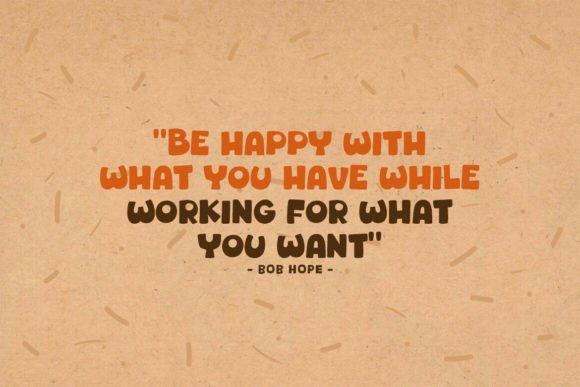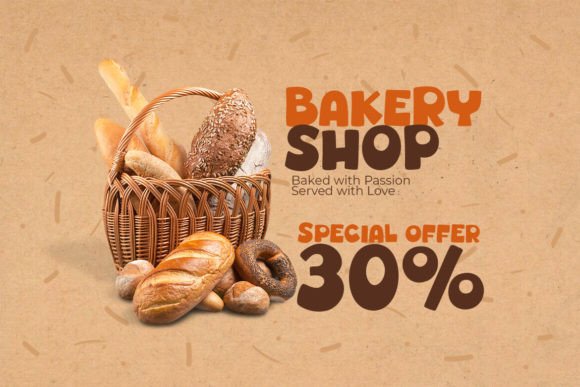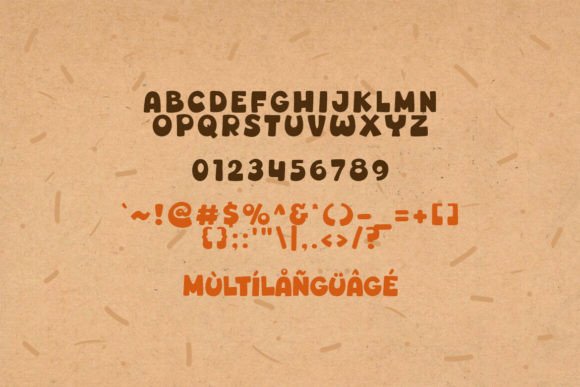
The Cute Roti Font: A Designer’s New Best Friend
I’ll never forget the time I was working on a project for a client who wanted a playful, eye-catching font to match their brand’s fun personality. I spent hours scouring the internet for the perfect font, but nothing seemed quite right. That was until I stumbled upon the Cute Roti font. It’s been a game-changer for me ever since, and I’m excited to share my experience with you.
- ✨ The Cute Roti font is ridiculously cute and playful, making it perfect for designs that need a bit of whimsy.
- ✅ It’s incredibly versatile and can be used for a wide range of projects, from posters and logos to magazines and book covers.
- 💡 The font has a modern feel that makes it perfect for designs that need to feel fresh and current.
While I absolutely love the Cute Roti font, there are a few things to keep in mind. For example:
- ⚠️ The font can be a bit overwhelming if overused, so be sure to balance it with some simpler fonts.
- 🤔 Some of the more intricate details can get lost at smaller font sizes, so be mindful of that when choosing a size.
The Story Behind Cute Roti
While the true story behind the Cute Roti font is unknown, it’s easy to imagine that it was created with the intention of bringing a bit of joy and whimsy to the design world. Perhaps the designer was inspired by the playful, carefree feel of childhood and wanted to bottle that up in a font. Whatever the inspiration, it’s clear that Cute Roti has become a beloved font among designers and crafters.
Q: What type of projects is Cute Roti best suited for?
A: Cute Roti is a versatile font that can be used for a wide range of projects, including posters, logos, magazines, book covers, and more.
Q: Is Cute Roti a script font?
A: No, Cute Roti is a display font with a sans-serif feel. While it has some decorative elements, it’s not a traditional script font.